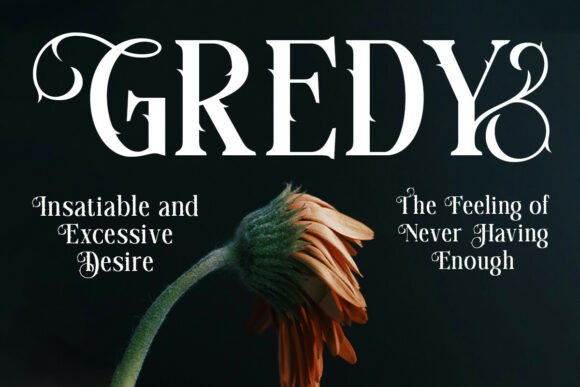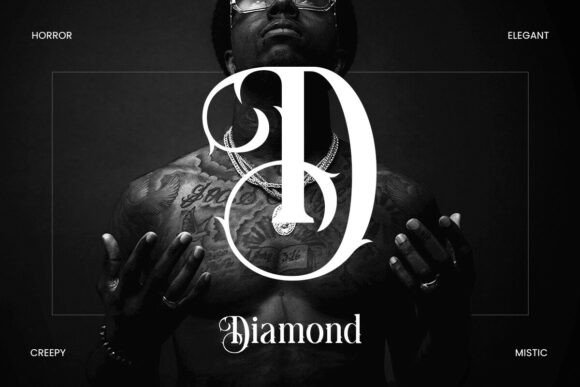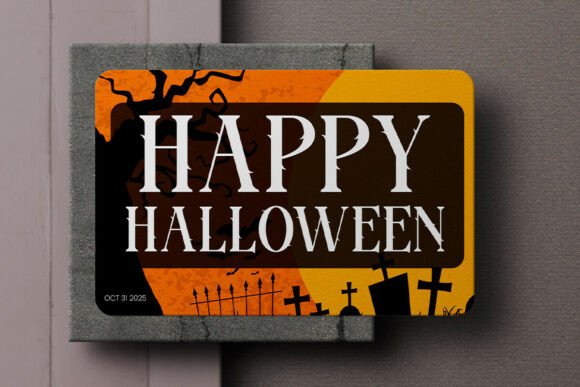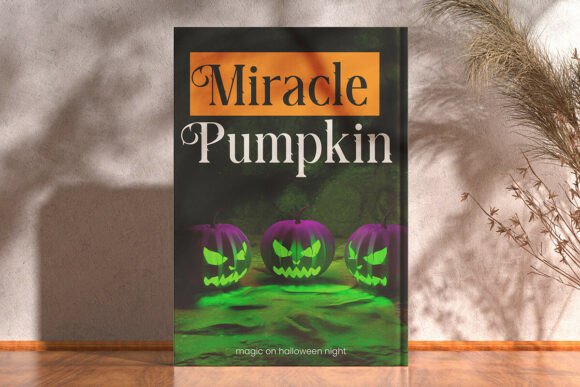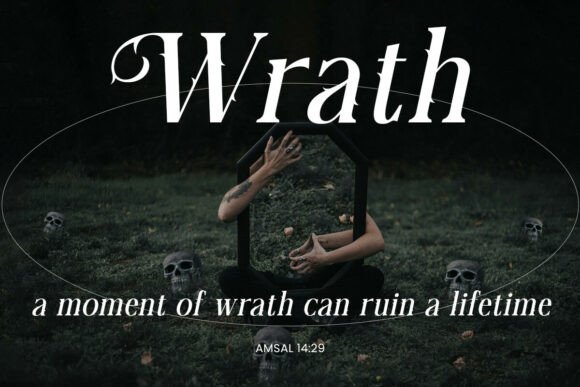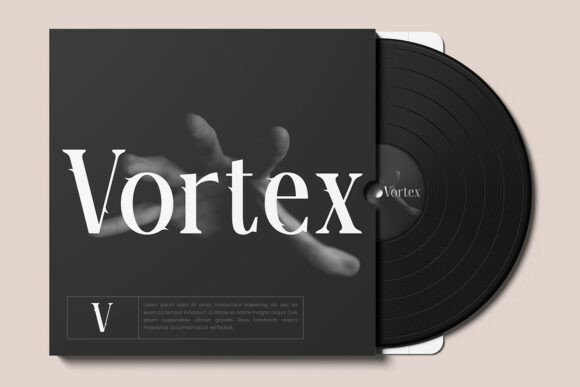
Unleash the Darkness: Introducing Deadly Sins Font
Are you a designer looking to add a touch of mystery and intrigue to your creations? Do you want to craft works that leave a lasting impression on your audience? Look no further than Deadly Sins, a gothic-inspired display font that embodies the essence of darkness and elegance. In this article, we’ll dive into the world of Deadly Sins, exploring its features, uses, and benefits for designers and crafters.
A Font that Embodies the Dark Side
Deadly Sins is a meticulously crafted font that draws inspiration from the mysterious and often misunderstood world of gothic art. Its sharp serifs, dramatic curves, and decorative swashes come together to create a sense of intensity and drama, perfect for projects that require a bold and haunting visual identity. Whether you’re designing a movie title, book cover, or poster, Deadly Sins is sure to make a statement.
Perfect for Dark and Moody Projects
So, what types of projects are best suited for Deadly Sins? The answer is simple: any project that requires a touch of darkness and mystery. Here are a few ideas to get you started:
- Movie titles and book covers: Add a sense of foreboding and suspense to your title designs with Deadly Sins.
- Halloween designs: Create spooky and eerie graphics that will leave a lasting impression on your audience.
- Gothic branding: Establish a strong and mysterious brand identity with Deadly Sins.
- Tattoo-inspired artwork: Add a touch of edginess to your designs with this bold and haunting font.
- Dark-themed social media graphics: Create engaging and memorable graphics that will stand out from the crowd.
A Font that’s Easy to Use
One of the standout features of Deadly Sins is its ease of use. This font is PUA-encoded, which means that all glyphs, swashes, and alternate characters are easily accessible. This allows you to customize your creations with ease, adding intricate details and flourishes to make your designs truly unique.
Why Choose Deadly Sins?
So, why should you choose Deadly Sins for your next project? Here are just a few compelling reasons:
- Unique and memorable designs: Deadly Sins allows you to create designs that will leave a lasting impression on your audience.
- Elegance with a sinister edge: This font combines the sophistication of traditional serif fonts with the edginess of gothic art.
- Versatility: Deadly Sins can be used for a wide range of projects, from movie titles to social media graphics.
- Easy to use: With its PUA encoding, Deadly Sins is easy to use, even for designers who are new to working with intricate fonts.
In conclusion, Deadly Sins is a powerful and versatile font that’s perfect for designers and crafters who want to add a touch of darkness and mystery to their creations. With its sharp serifs, dramatic curves, and decorative swashes, this font is sure to make a statement. Whether you’re designing a movie title, book cover, or social media graphic, Deadly Sins is the perfect choice for anyone looking to create unforgettable designs. So why wait? Unleash the darkness and get creative with Deadly Sins today!
Key Features of Deadly Sins Font
- Gothic-inspired display font
- Sharp serifs and dramatic curves
- Decorative swashes and alternate characters
- PUA-encoded for easy access to glyphs and swashes
- Perfect for movie titles, book covers, posters, and more